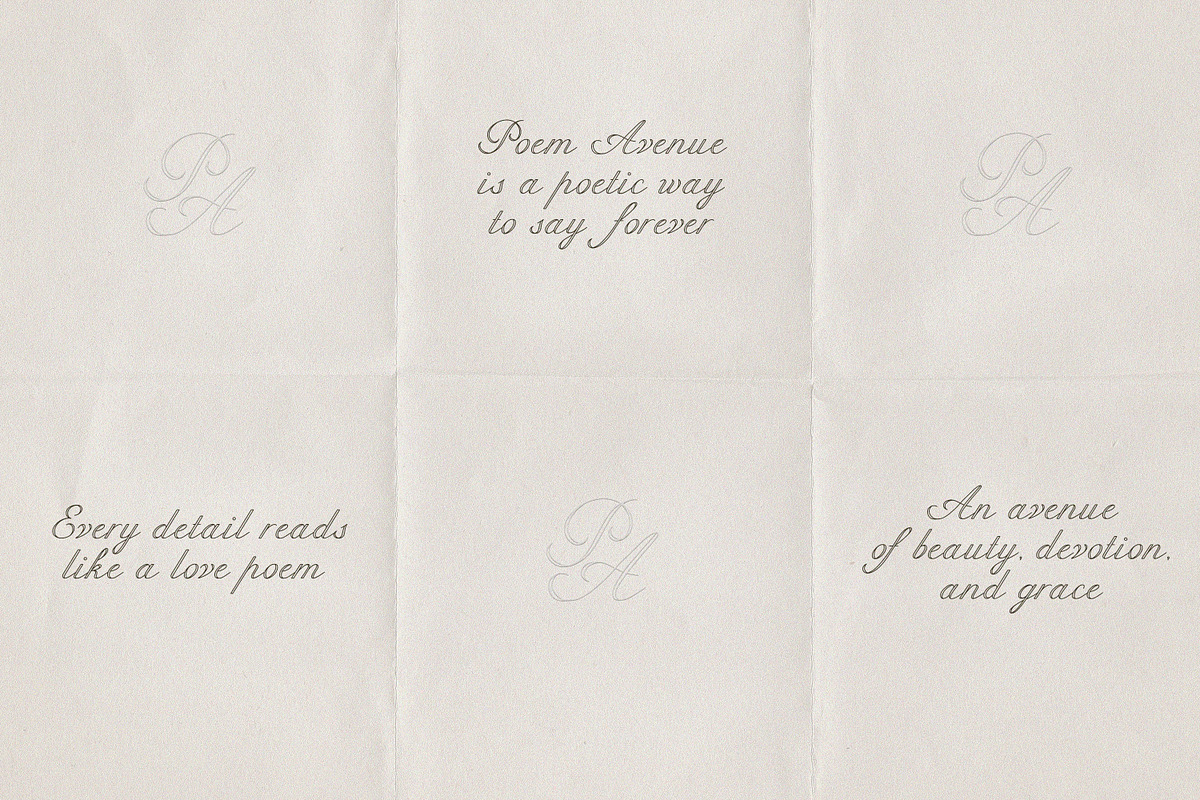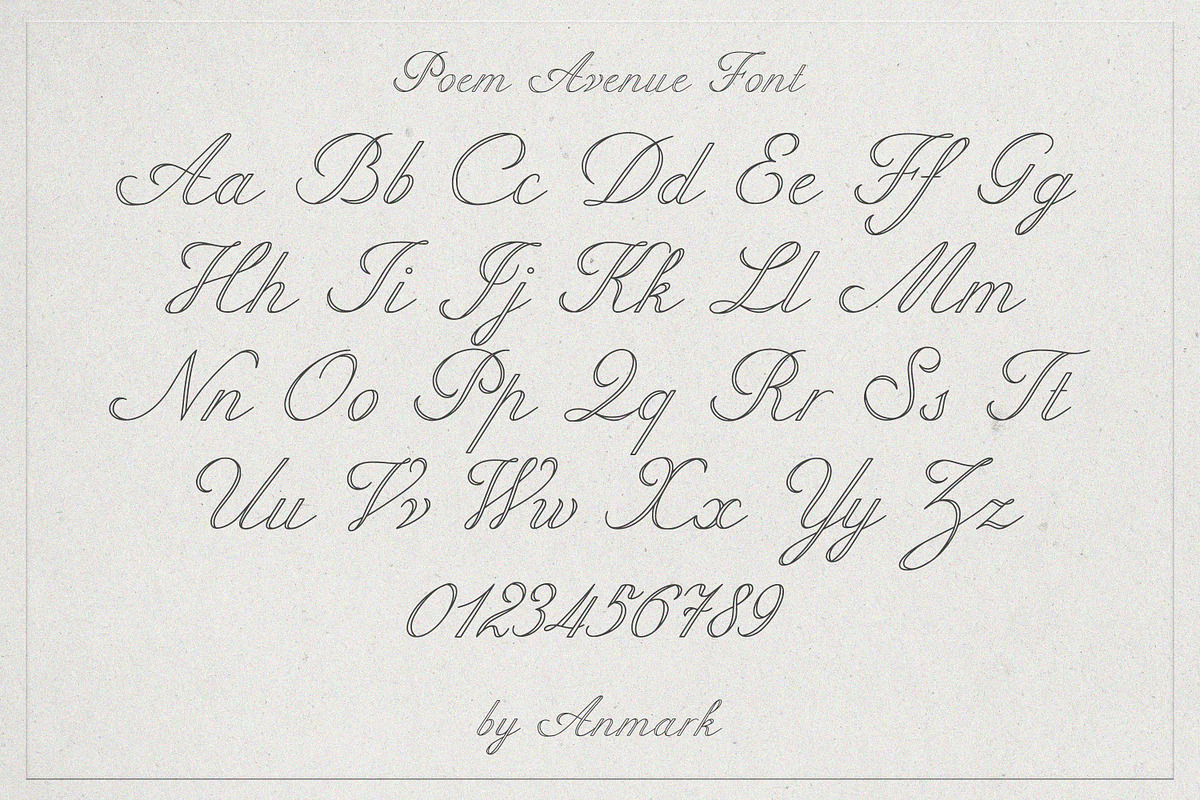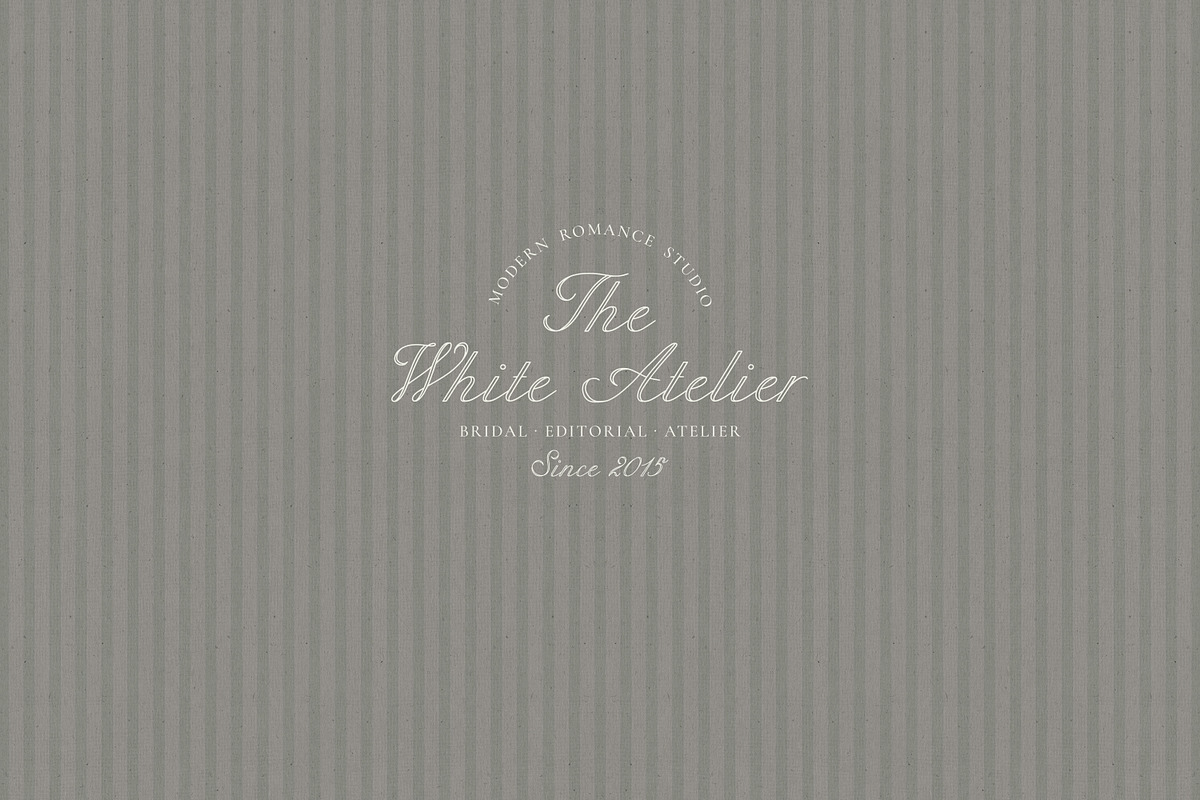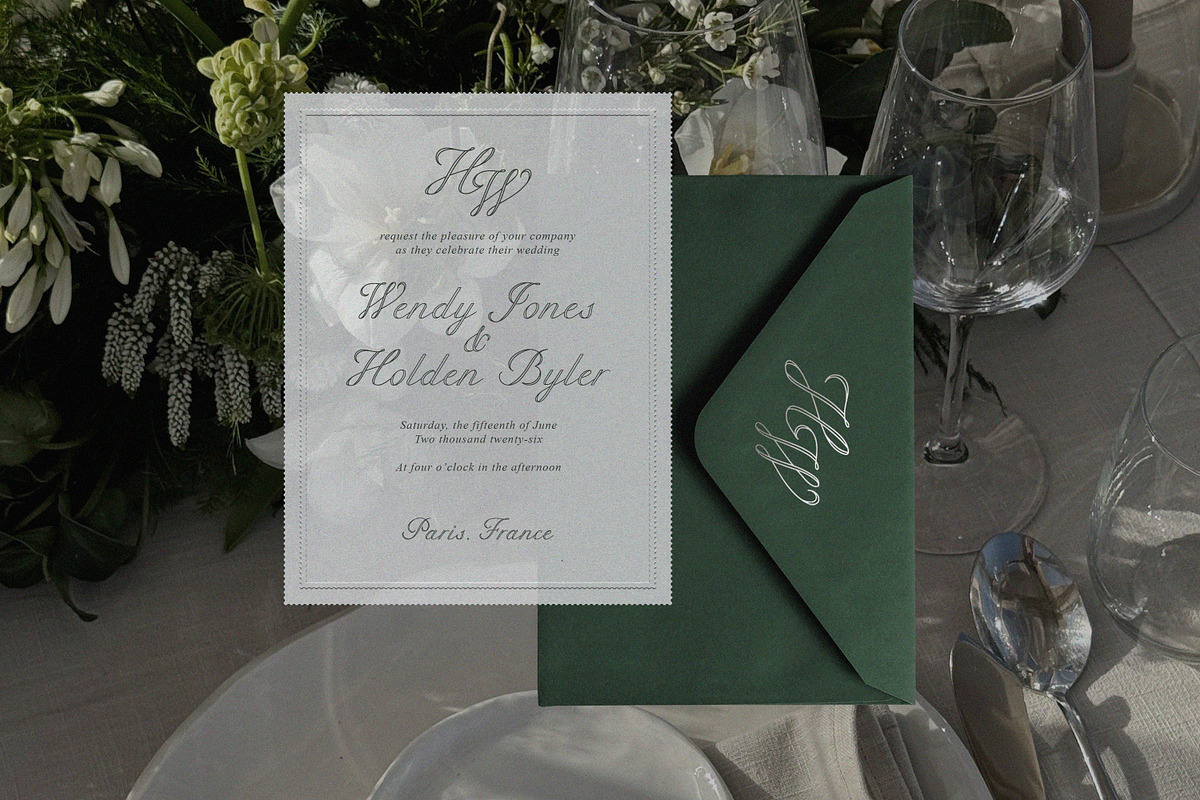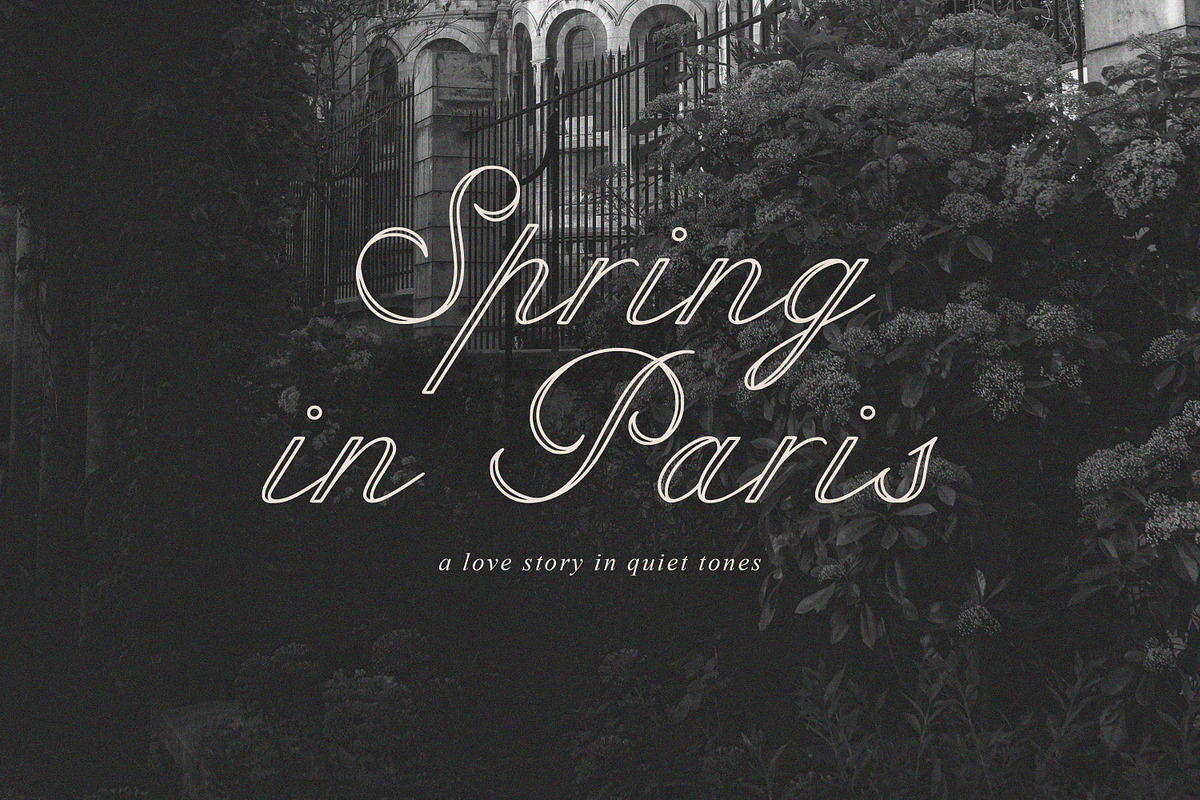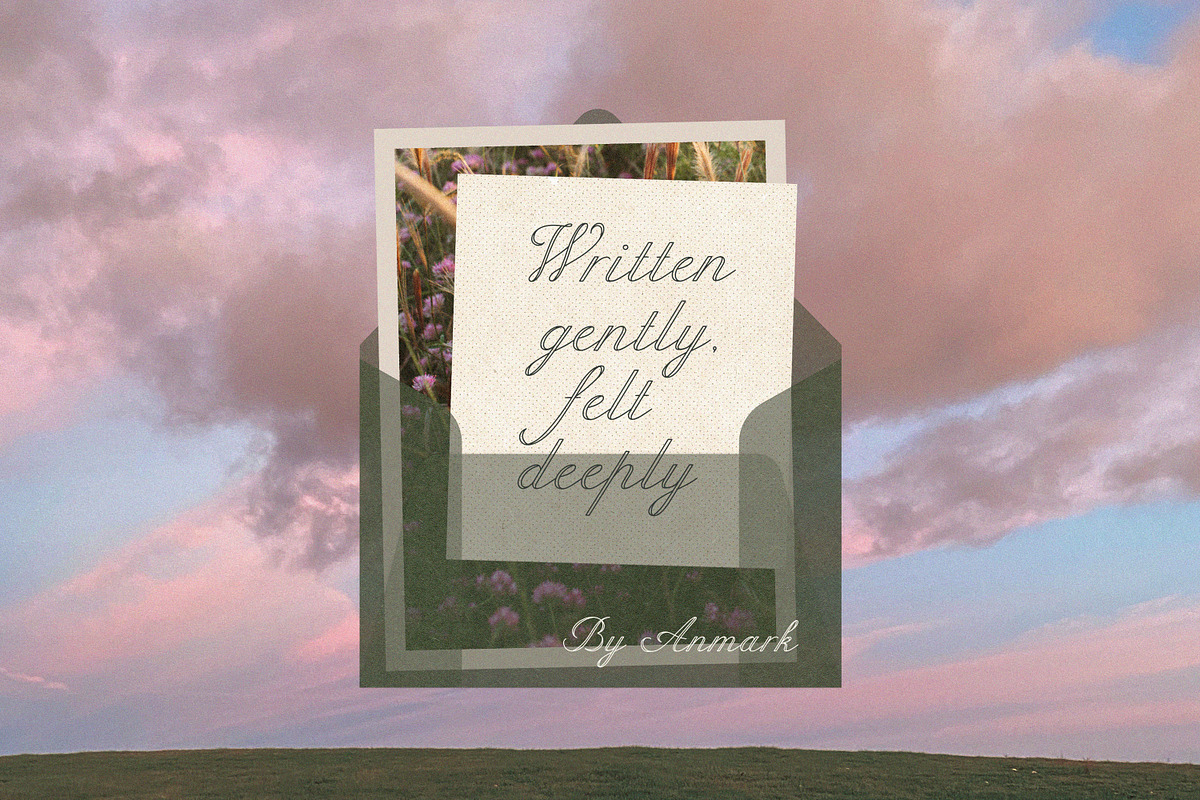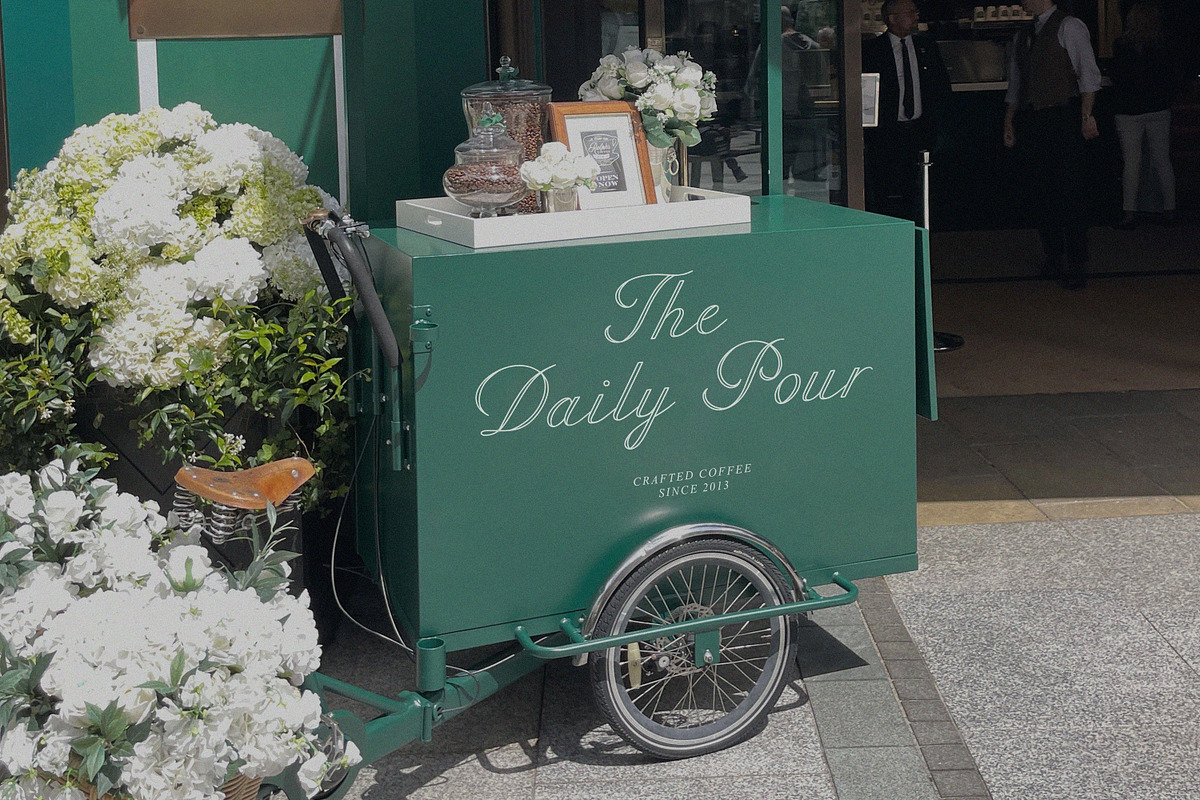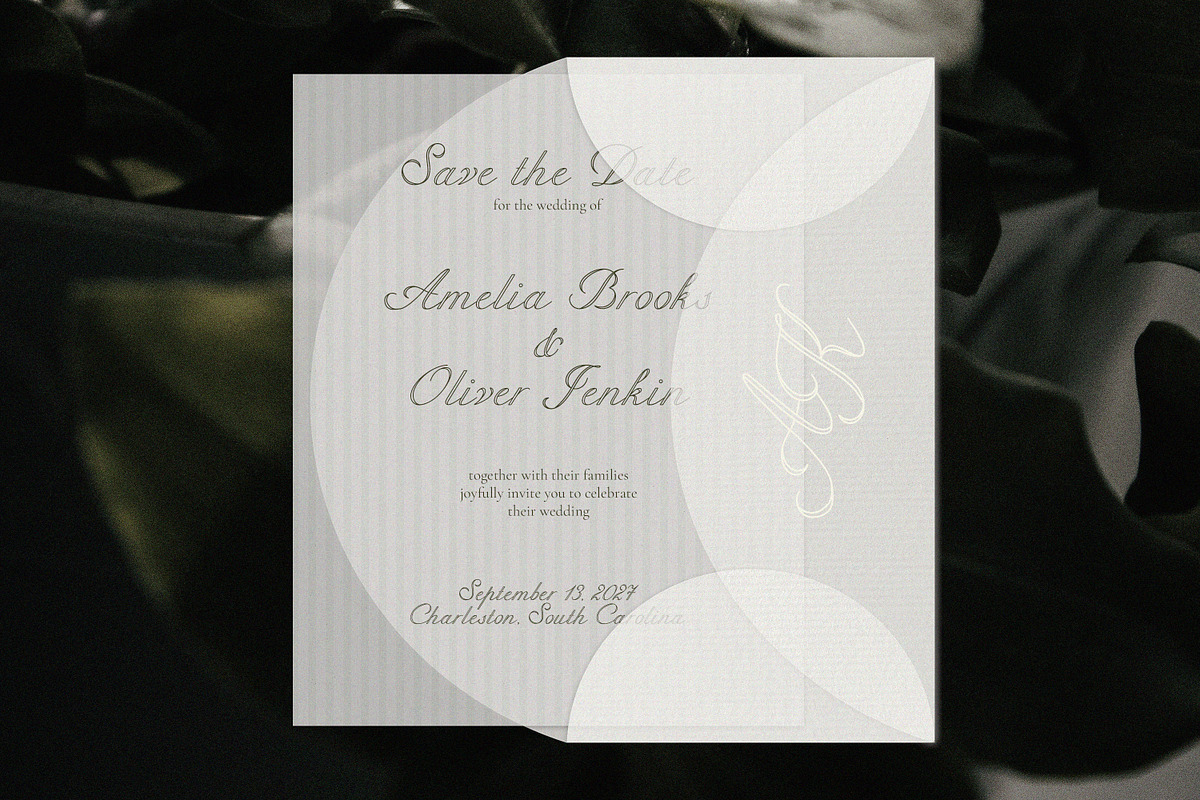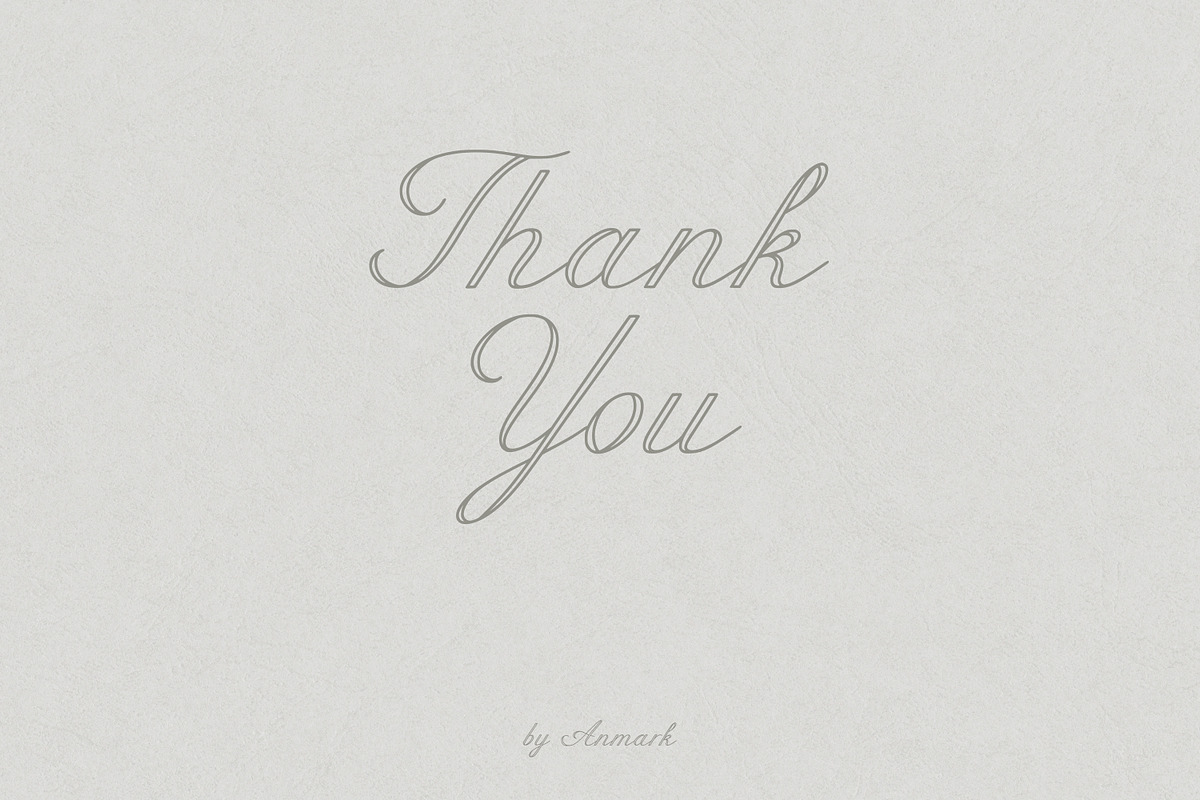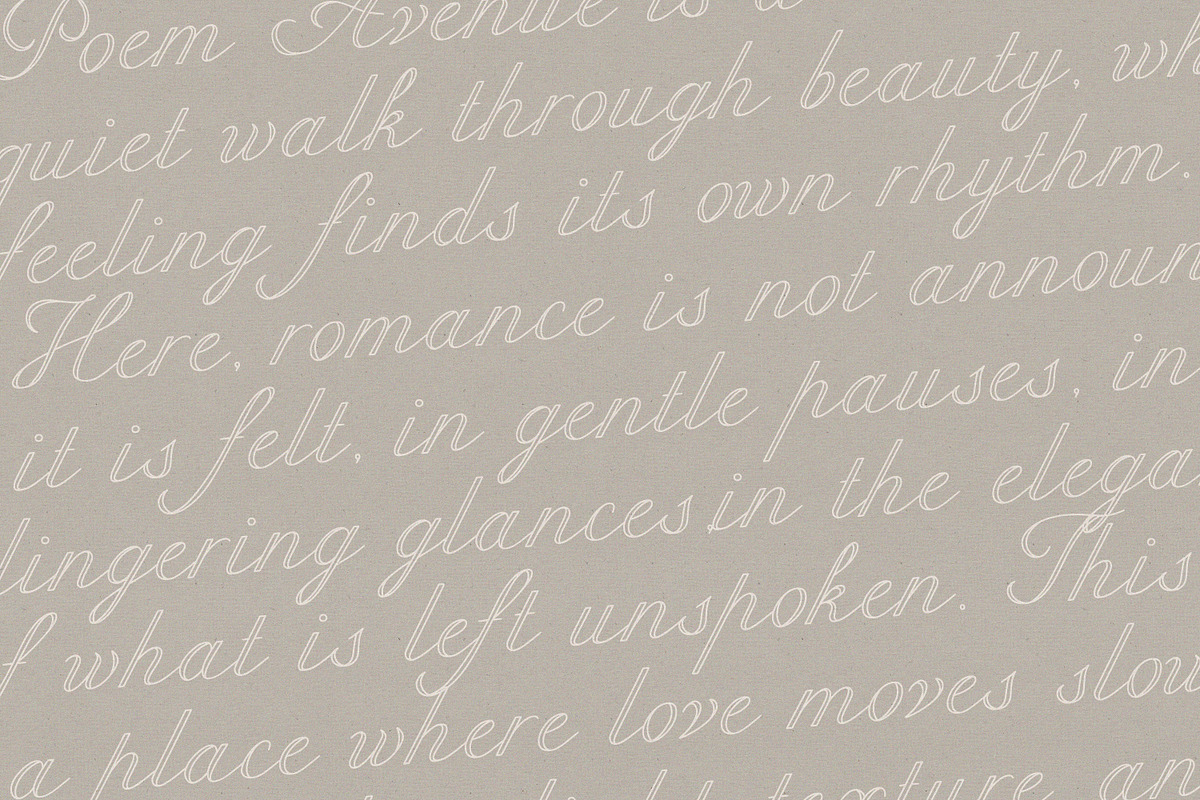
Poem Avenue Elegant Romantic Script
Poem Avenue is an elegant, romantic handwritten script with a flowing, poetic style. Its soft and graceful lines bring a delicate, sophisticated touch to any design, making it perfect for projects that need a romantic and refined feel.
Ideal for:
Wedding invitations and wedding stationery
Logos and branding projects
Monograms and personalized signatures
Greeting cards, packaging, and other creative projects that require a charming, handcrafted touch
Poem Avenue adds elegance and subtle romance, making your designs truly unforgettable.